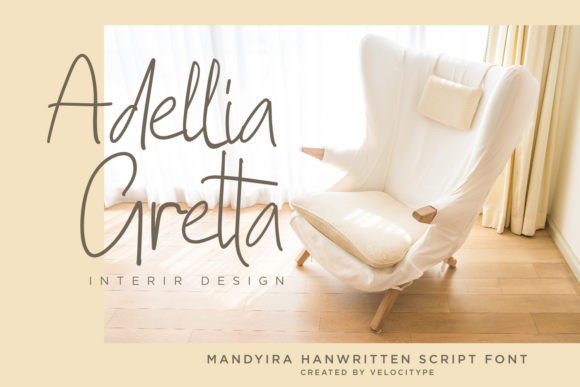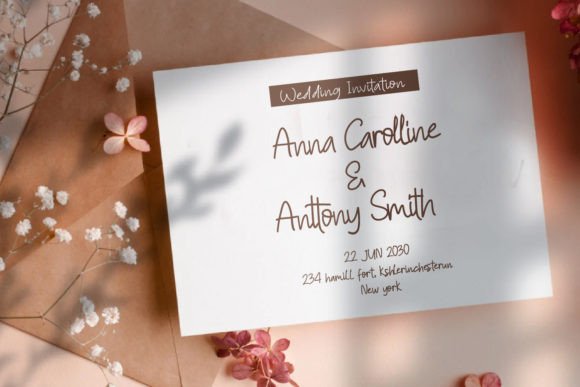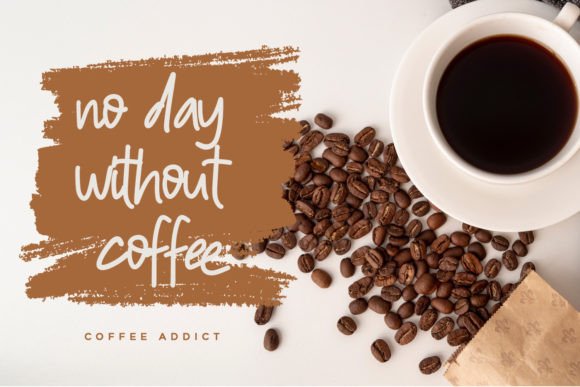
Introduction to Mandyira Font
Indulge in the timeless beauty of our exquisite script font.
Mandyira’s elegant and graceful letterforms evoke a sense of sophistication and luxury, making it perfect for high-end designs With its intricate and detailed strokes, this font is sure to make a lasting impression and add a touch of refinement to any project.
Why Choose Mandyira Font?
Mandyira Font offers exceptional quality and versatility, making it a valuable addition to your design toolkit. Whether you’re creating for personal projects or commercial use, Mandyira Font delivers professional results.